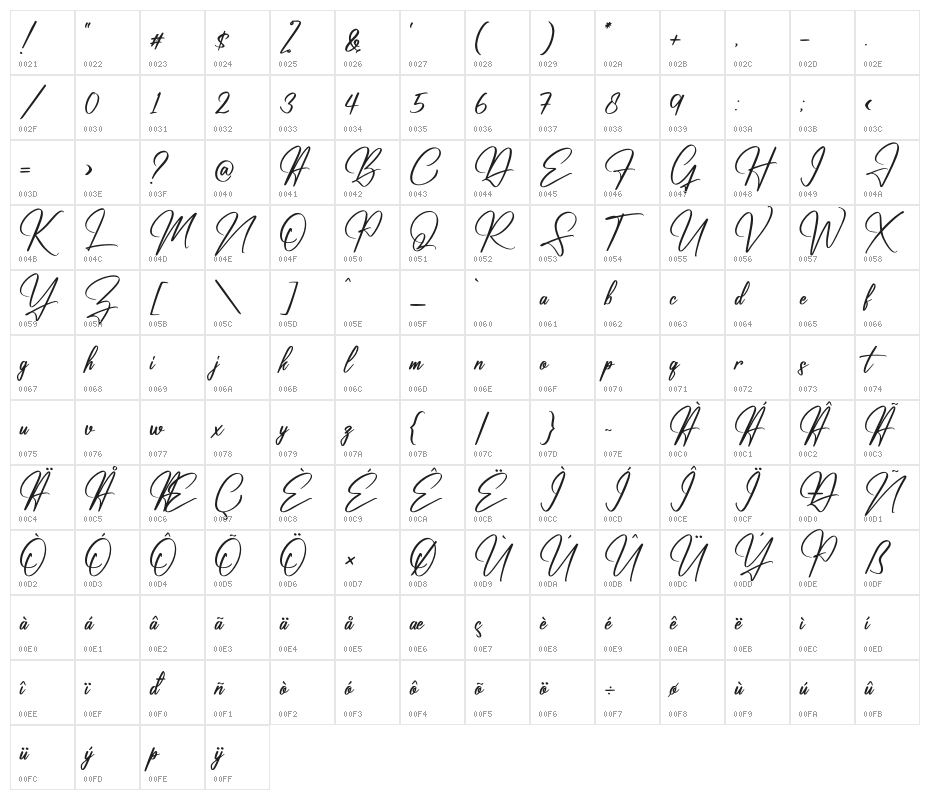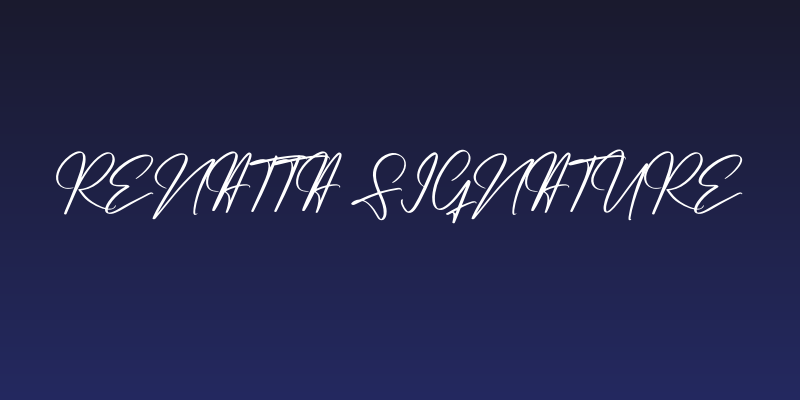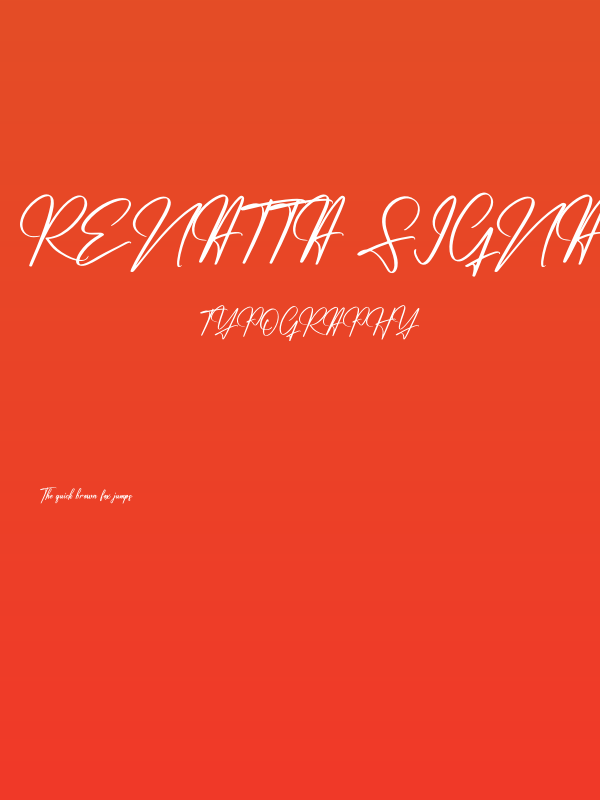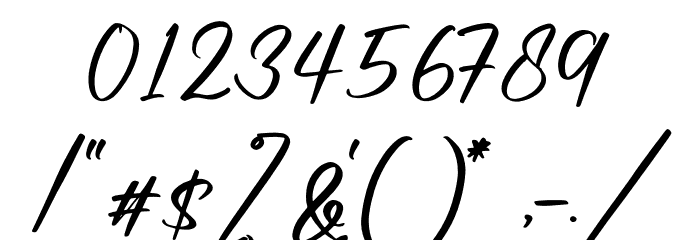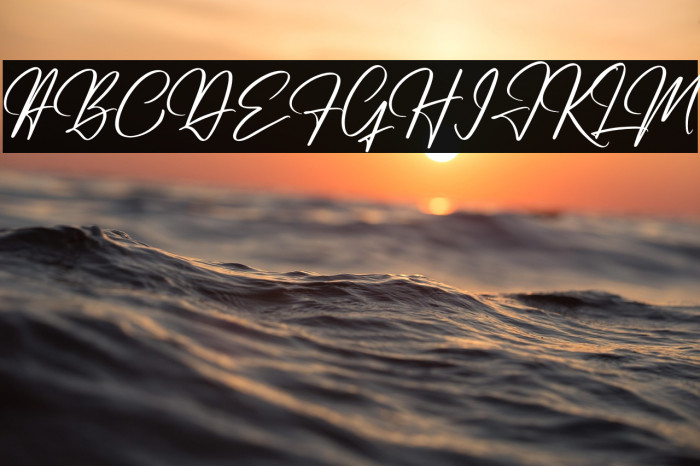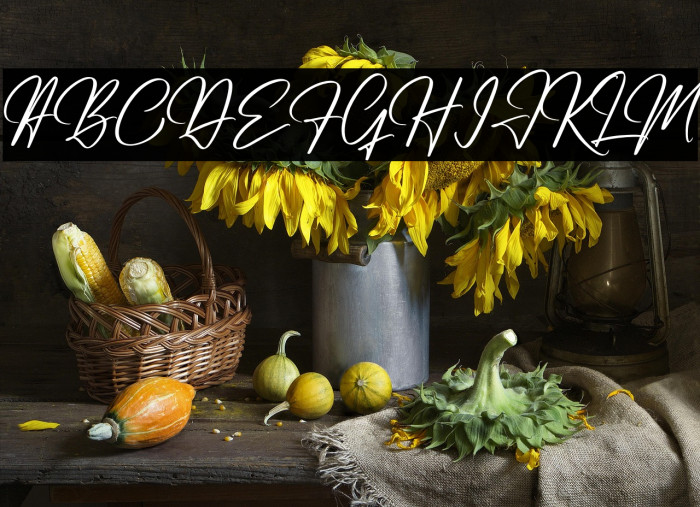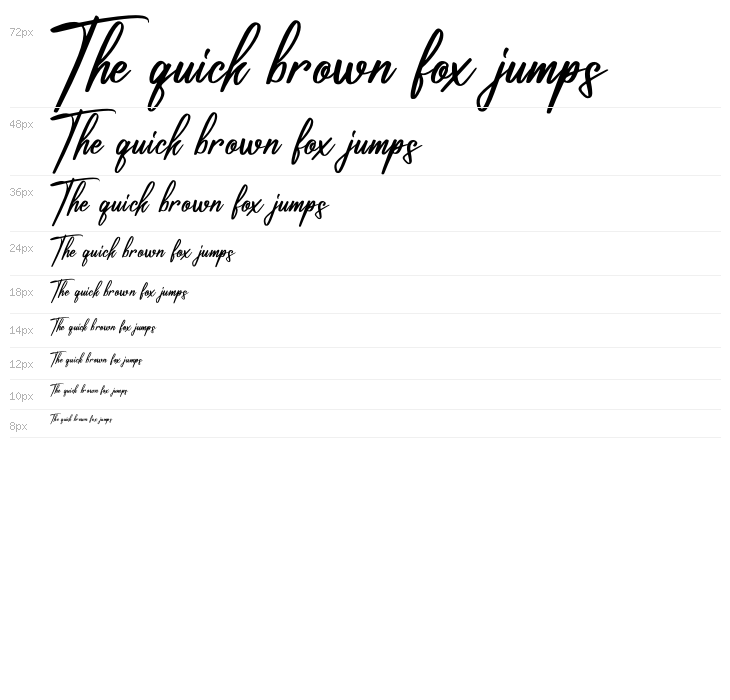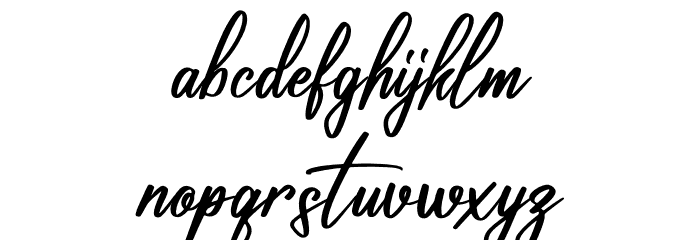
Renatta Signature Font
Renatta Signature Description
This font exudes elegance and sophistication with its fluid, cursive style. The uppercase letters are characterized by sweeping, graceful curves that give a sense of movement and flow. The lowercase letters maintain a consistent style, with smooth connections between each character, enhancing the script's readability. The numbers are crafted with the same attention to detail, blending seamlessly with the overall aesthetic. Special characters are thoughtfully designed, maintaining the font's cohesive look. This font is perfect for projects that require a touch of class and refinement.
| Overall Style | Elegant |
| Use Case | Logos, Invitations, Branding |
| Proposed Projects | Ideal for wedding invitations, branding, logo design, and elegant stationery. |